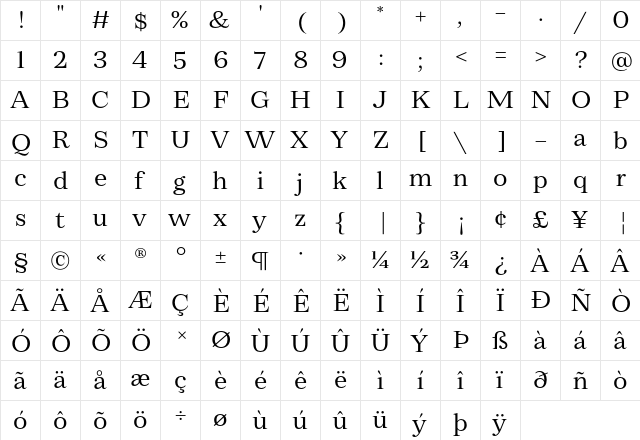
Zeit Light
| Foundry | Fenotype |
| Designer | Emil Bertell, Teo Tuominen |
Design Context for Zeit Typeface
Zeit takes a measured approach to typography — its balanced proportions and neutral character make it a reliable workhorse for both digital and print work. Its slender proportions lend an understated elegance to any composition.